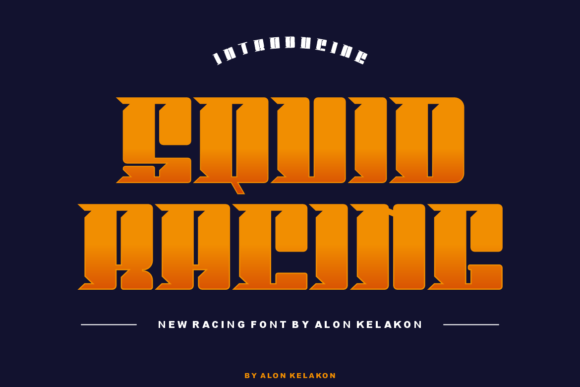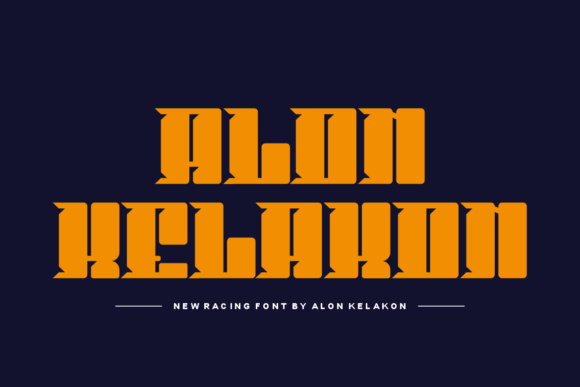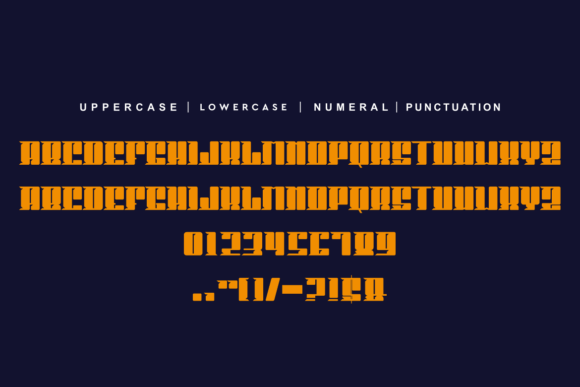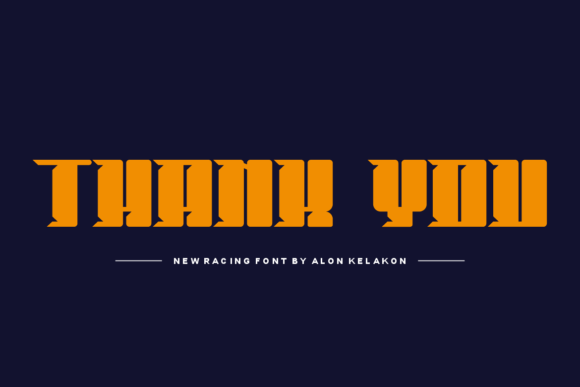
Squid Racing
Squid Racing: A Chubby and Unique Slab Serif Font
Squid Racing is a chubby and unique slab serif font. It’s ready to use for your design projects like labeling, clothing, movie screens, posters, movie titles, gigs, album covers, logos, and much more.
Key Features of Squid Racing
• Chubby Design: Offers a bold and playful look with its thick, rounded forms.
• Slab Serif Structure: Features distinctive chunky serifs that add character and style.
• Unique Appearance: Brings a distinctive and memorable quality to designs.
• Versatile Application: Ideal for both print and digital media projects across various industries.
Ideal Uses for Squid Racing
Squid Racing’s unique characteristics make it particularly well-suited for:
When incorporating Squid Racing into your designs, consider these tips:
• Use for headlines or short blocks of text to showcase its chubby style.
• Experiment with different sizes to highlight the font’s unique features.
• Utilize its playful appearance to create designs that command attention.
Squid Racing is an excellent choice for designers looking to add a chubby and unique slab serif font to their typographic toolkit. Its ability to bring a playful and distinctive touch to various design projects makes it stand out in the world of typography. Whether you’re working on product labels, creating movie posters, or developing branding for music events, Squid Racing offers the perfect blend of boldness and character.
Furthermore, Squid Racing’s unique design allows it to shine in various contexts. From clothing designs to album covers, this font can elevate your projects with its distinctive style. Its chubby yet readable appearance works particularly well in designs that aim to convey a sense of fun and uniqueness.
In conclusion, Squid Racing is a font that truly captures the essence of playfulness and uniqueness in typography. Its versatility across different media showcases its adaptability to various creative needs. For those looking to add a touch of chubby charm to their work, Squid Racing can enhance themed creations with its distinctive style. It’s the perfect choice for designers seeking to make a bold, memorable impact across a wide range of creative projects.